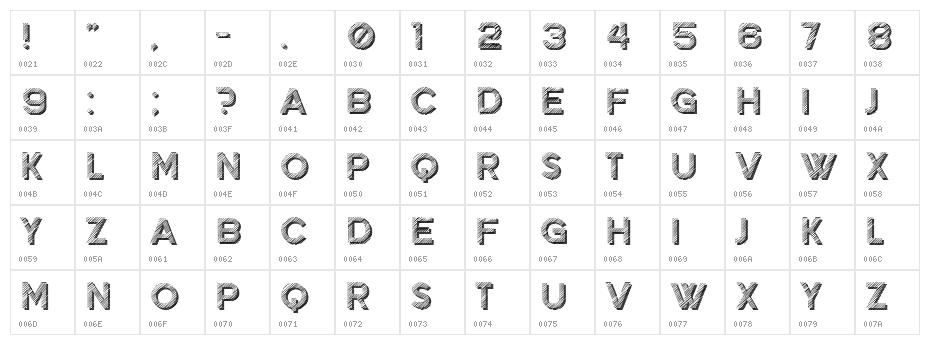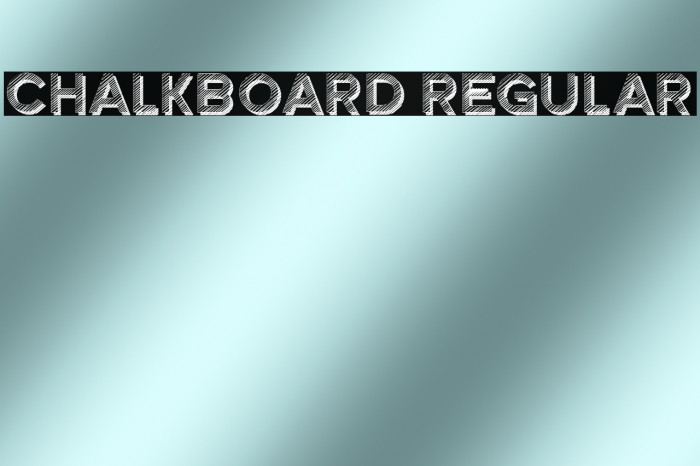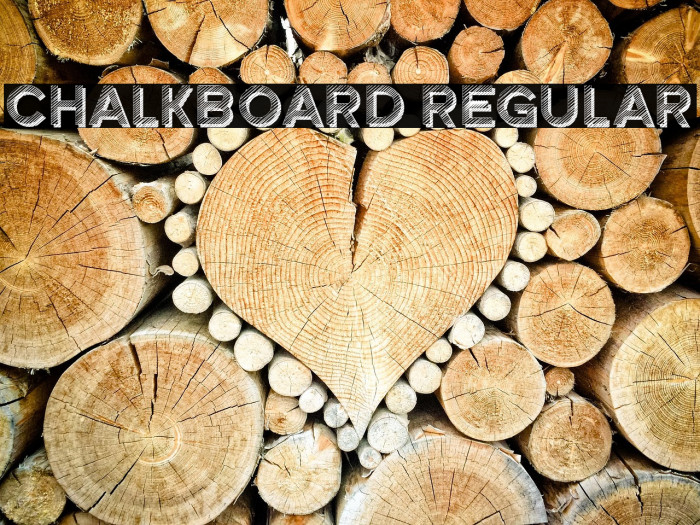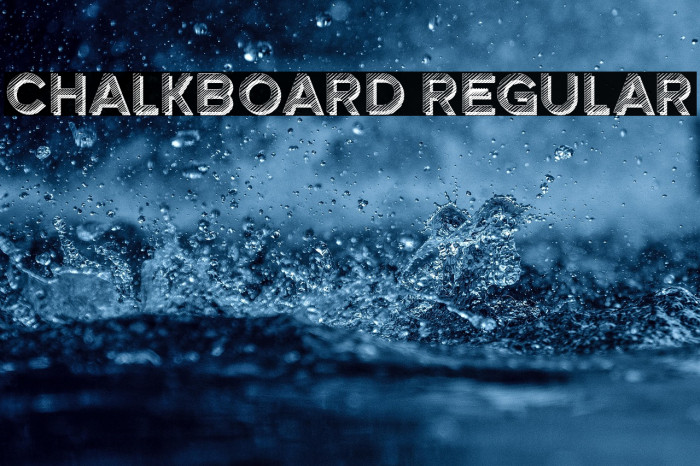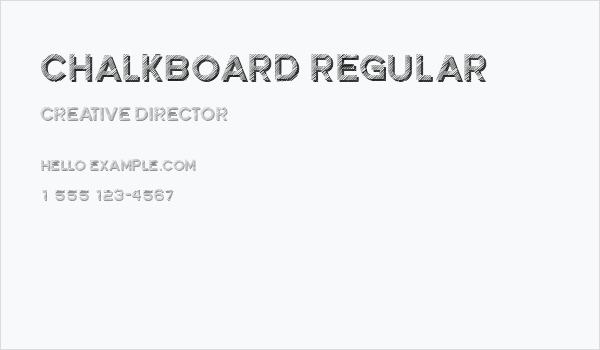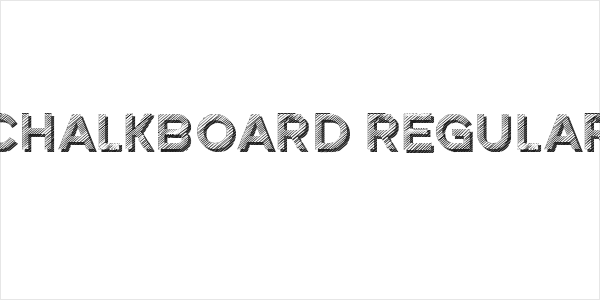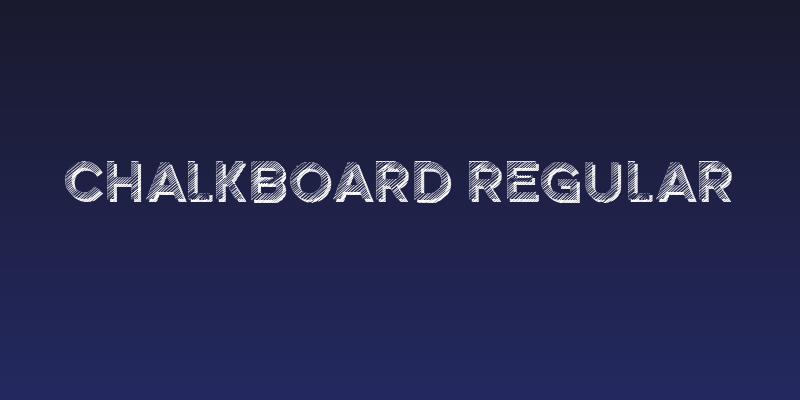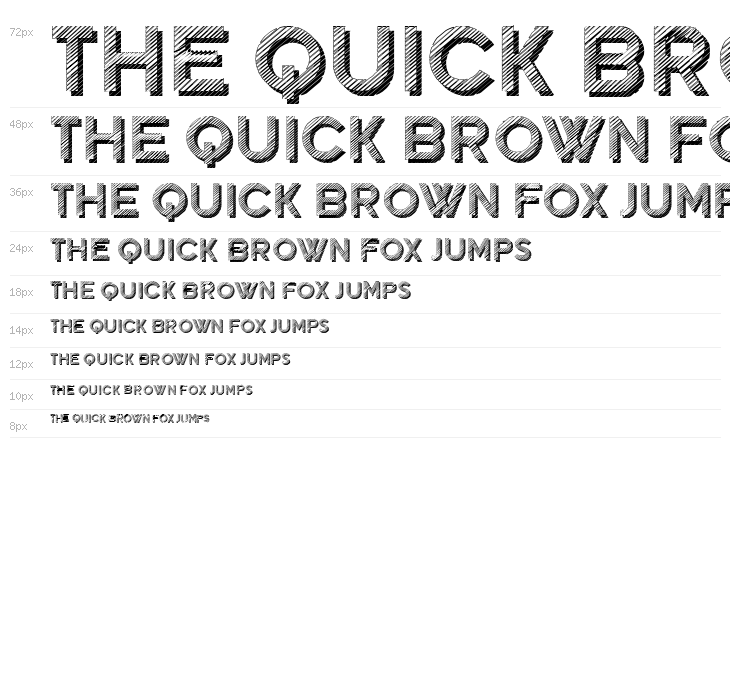
Chalkboard Regular Font
Chalkboard Regular Description
This font features a playful and textured design reminiscent of chalk writing on a blackboard. The letters are bold and have a hand-drawn appearance with diagonal hatching that adds depth and dimension. The uppercase and lowercase letters maintain a consistent style, with rounded edges and a slightly condensed form. The numbers and special characters follow the same aesthetic, making the font cohesive and visually appealing. Its unique style makes it suitable for creative and informal projects, adding a touch of whimsy and nostalgia.
Proposed ProjectsIdeal for educational materials, children's books, cafe menus, and creative posters.